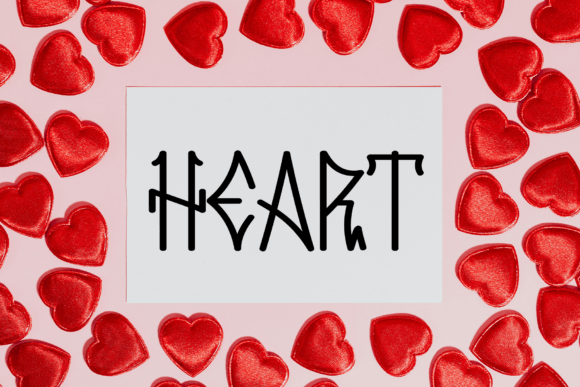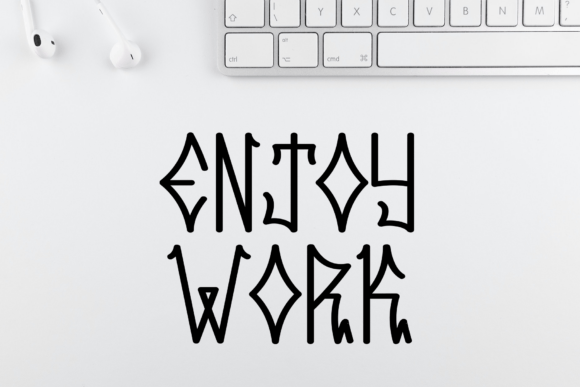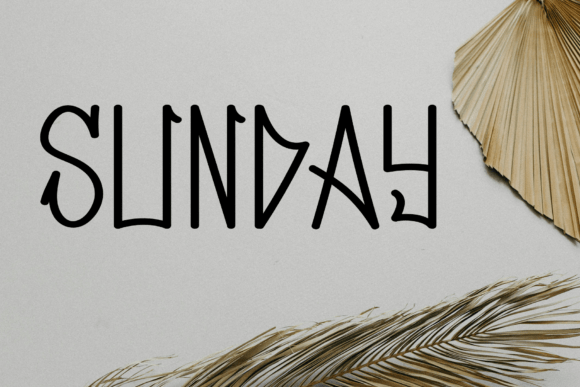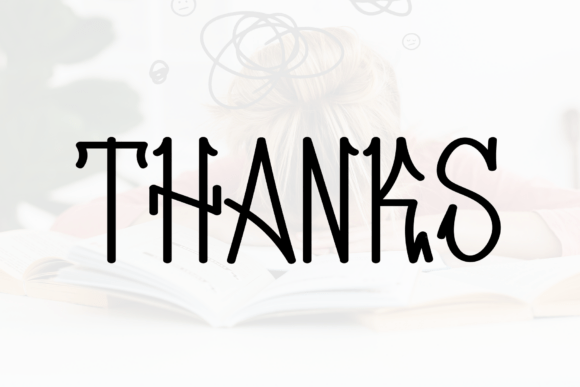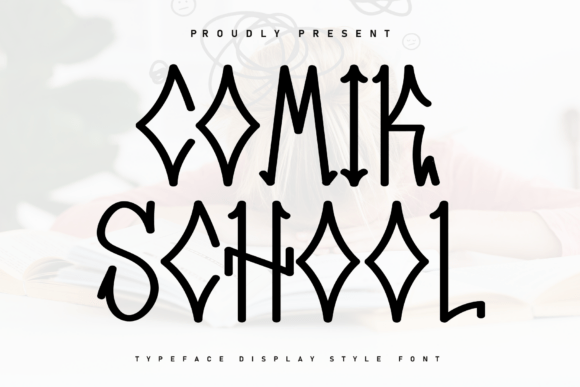
Introducing Comik School Font: The Perfect Handwritten Style for Your Designs
Are you looking for a font that adds a touch of elegance and sophistication to your designs while still maintaining a casual and relaxed feel? Look no further than Comik School Font. This beautiful handwritten font is designed to resemble writing with a marker, giving it a unique and sporty vibe that’s perfect for a wide range of design projects.
What is Comik School Font?
Comik School Font is a carefully crafted handwritten font that mimics the look of marker-drawn writing. Its relaxed and sporty feel makes it an excellent choice for designers and crafters who want to add a personal touch to their work. Whether you’re creating branding materials, logos, wedding supplies, greeting cards, or marketing promotions, Comik School Font is the perfect choice.
Key Features of Comik School Font
- Handwritten style: Comik School Font boasts a beautiful, handwritten style that’s perfect for adding a personal touch to your designs.
- Marker-drawn look: The font’s marker-drawn look gives it a unique and sporty feel that’s sure to make your designs stand out.
- Relaxed and casual: Comik School Font has a relaxed and casual vibe that’s perfect for designs that need to feel approachable and friendly.
- Luxurious and elegant: Despite its casual feel, Comik School Font still manages to convey a sense of luxury and elegance, making it perfect for high-end designs.
Use Cases for Comik School Font
Comik School Font is incredibly versatile and can be used for a wide range of design projects, including:
- Branding and logos: Create a unique and memorable brand identity with Comik School Font.
- Wedding supplies: Add a touch of elegance and sophistication to your wedding designs, such as invitations, programs, and place cards.
- Greeting cards: Create beautiful and heartfelt greeting cards for any occasion.
- Fashion and lookbooks: Use Comik School Font to add a stylish and trendy touch to your fashion designs and lookbooks.
- Marketing promotions: Create eye-catching and effective marketing materials, such as flyers, brochures, and posters.
Why Choose Comik School Font?
With so many fonts to choose from, why should you choose Comik School Font? Here are just a few reasons:
- Unique style: Comik School Font has a unique and distinctive style that’s sure to make your designs stand out.
- Easy to read: Despite its handwritten style, Comik School Font is easy to read and understand, making it perfect for body text and headings.
- Versatile: Comik School Font can be used for a wide range of design projects, from branding and logos to wedding supplies and greeting cards.
- High-quality: Comik School Font is a high-quality font that’s designed to deliver exceptional results.
Tips for Using Comik School Font
Here are a few tips for getting the most out of Comik School Font:
- Use it sparingly: Comik School Font is a bold and eye-catching font, so use it sparingly to avoid overwhelming your designs.
- Pair it with other fonts: Experiment with pairing Comik School Font with other fonts to create a unique and interesting contrast.
- Adjust the size and color: Play around with different sizes and colors to find the perfect combination for your design.
Comik School Font is a beautiful and versatile handwritten font that’s perfect for designers and crafters who want to add a touch of elegance and sophistication to their work. With its unique marker-drawn look, relaxed and sporty feel, and high-quality design, Comik School Font is sure to become a go-to font in your design arsenal. So why wait? Download Comik School Font today and start creating stunning designs that will leave a lasting impression.